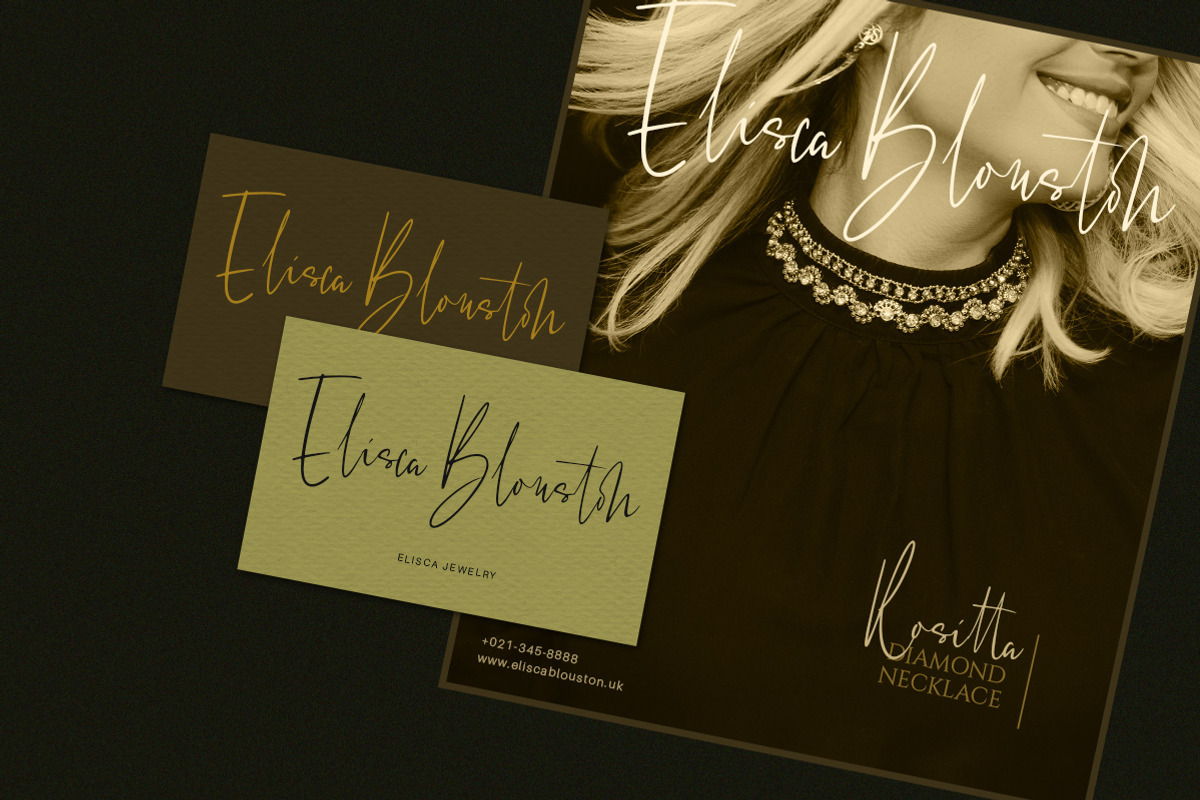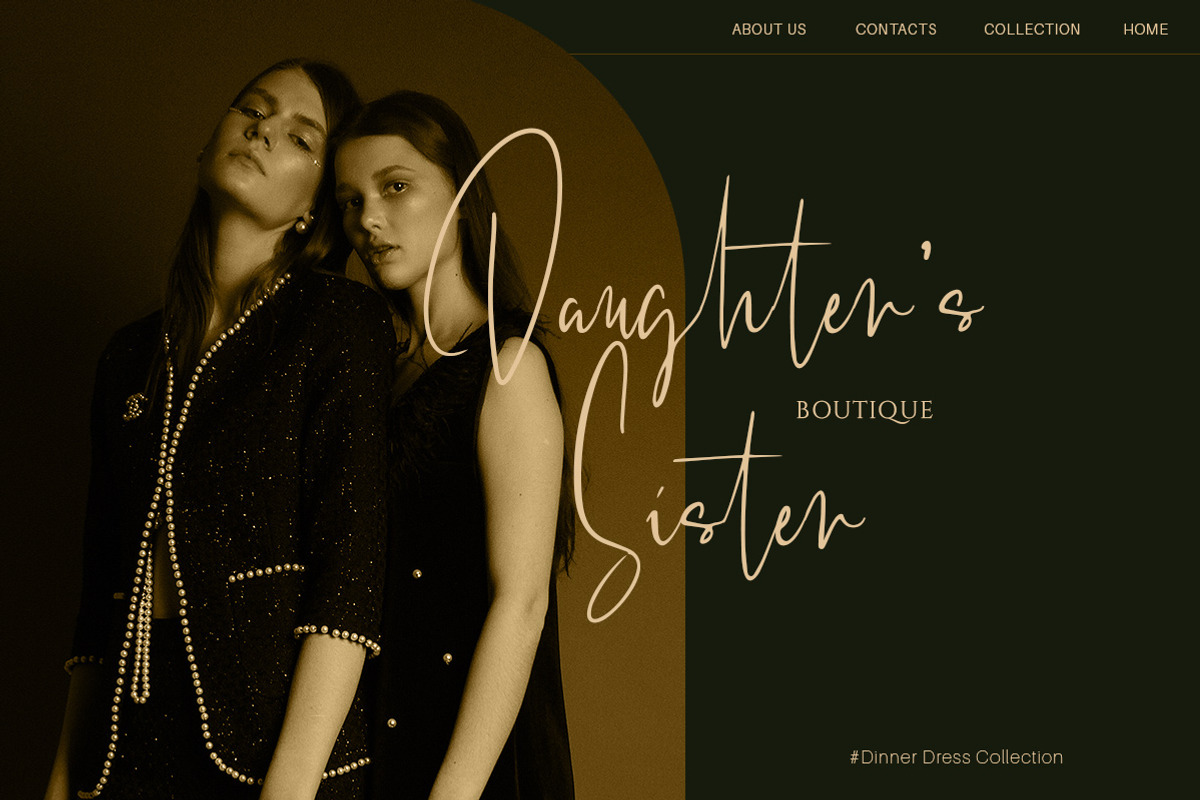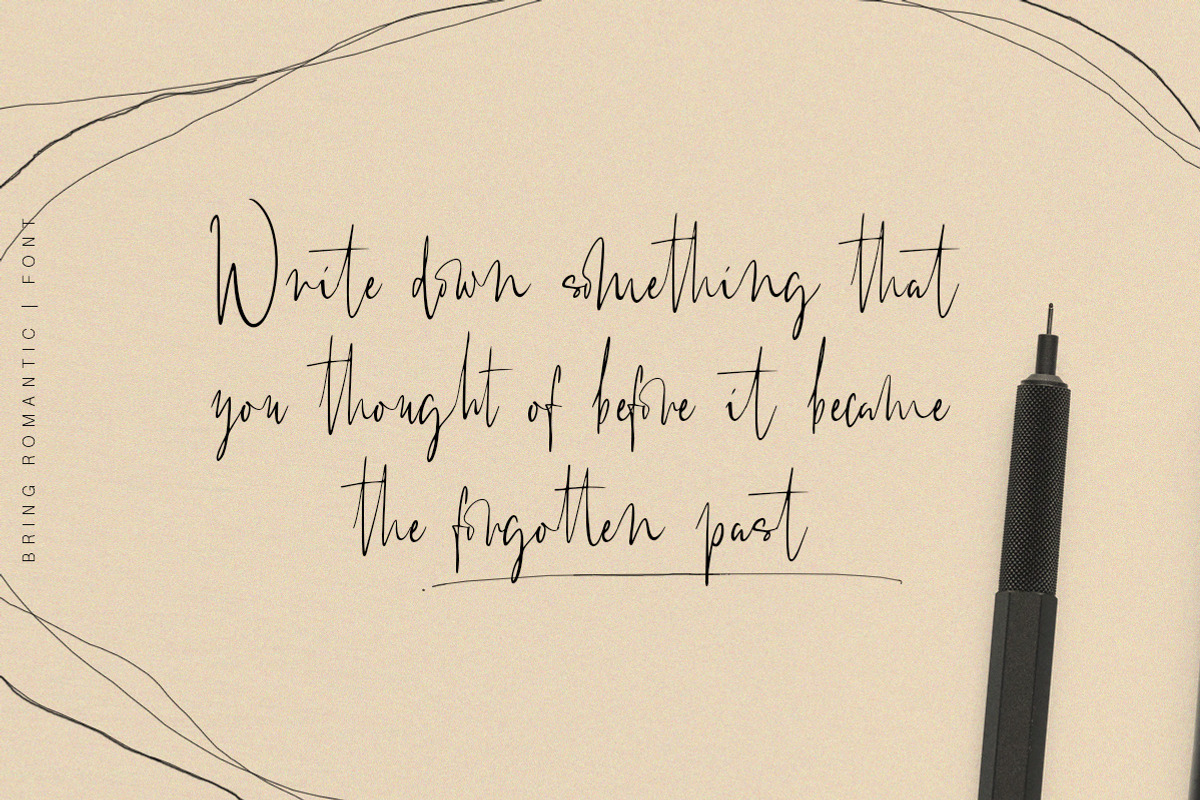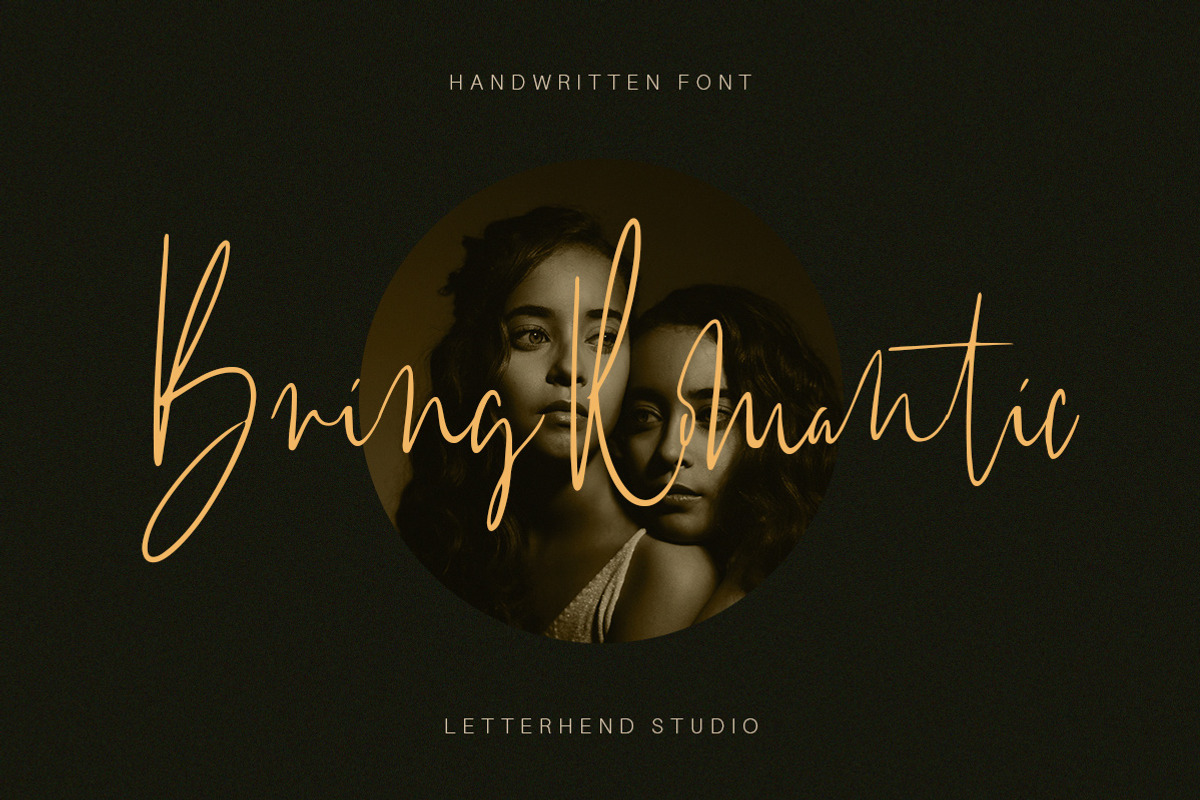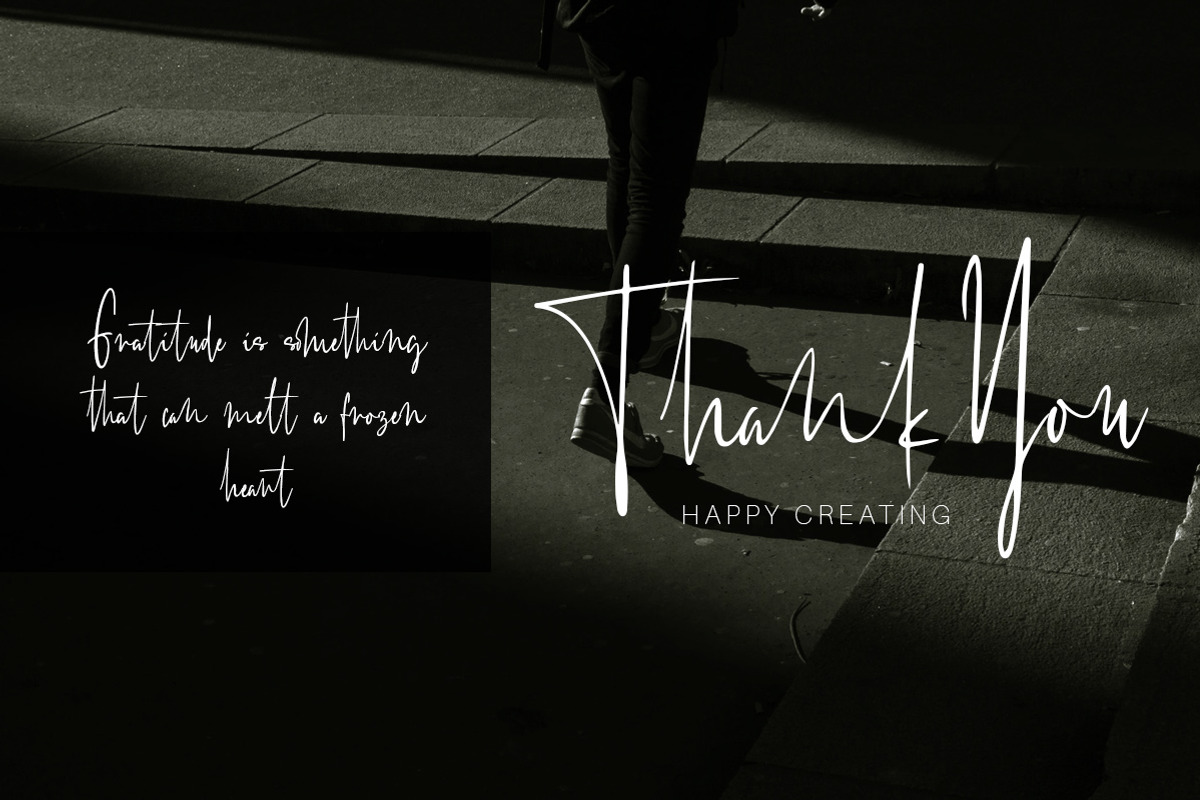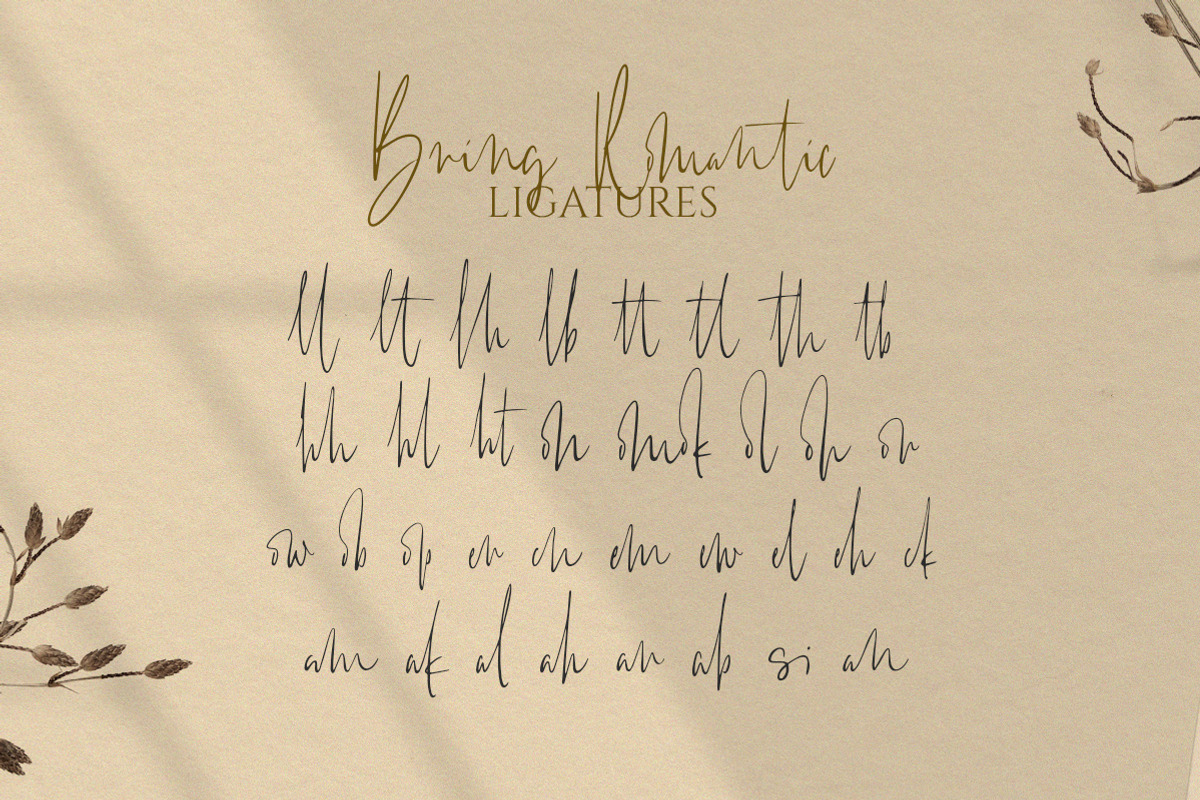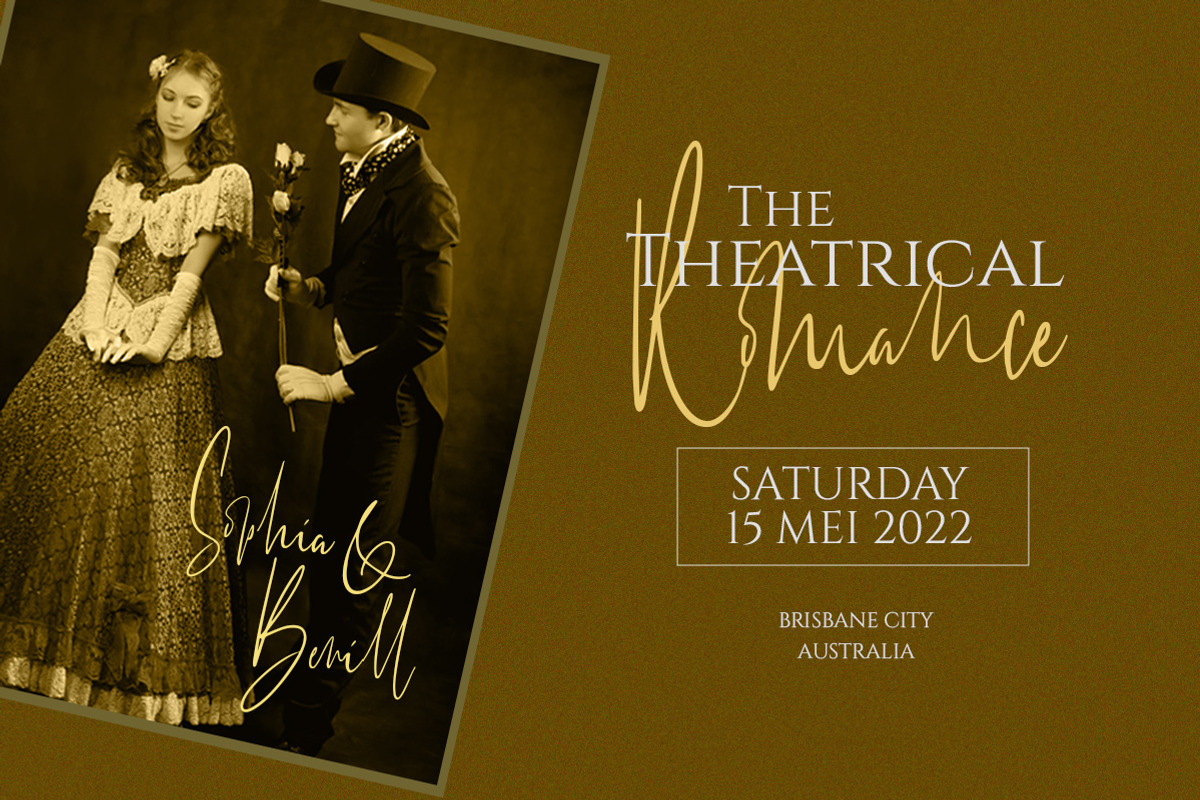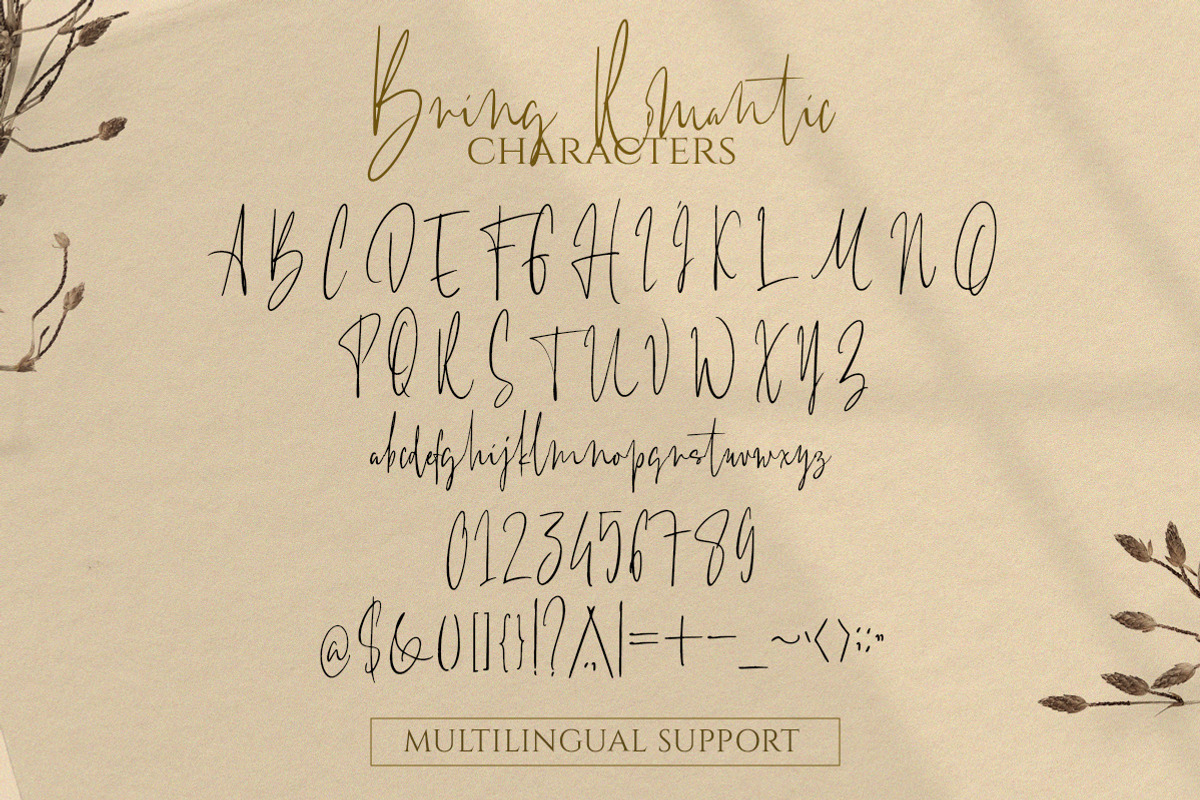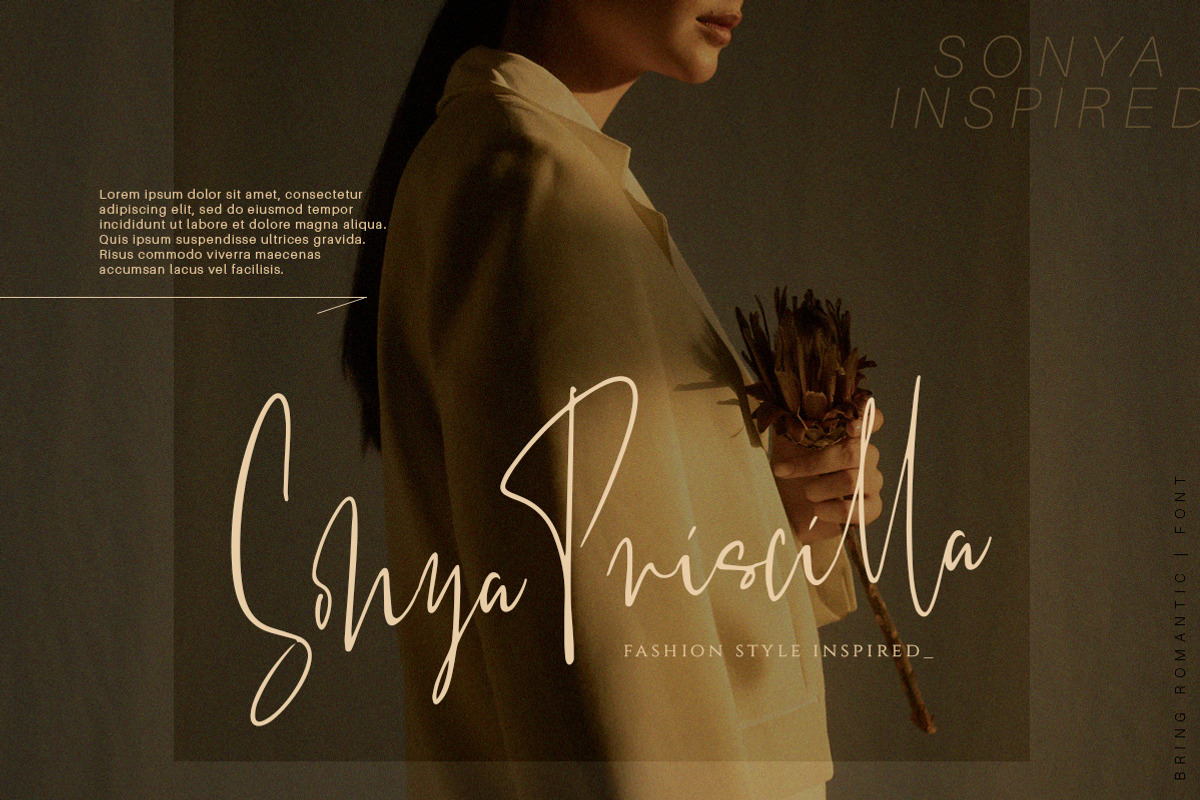
Bring Romantic - Handwritten Font
Introducing, Bring Romantic - a lovely wedding typeface. This font has many stylistic alternates, ligatures, swashes so you can play around with them using opentype features and creates lettering with natural touch. This type of font perfectly made to be applied especially in logo, and the other various formal forms such as invitations, labels, logos, magazines, books, greeting / wedding cards, packaging, fashion, make up, stationery, novels, labels or any type of advertising purpose.
- alternates and ligatures
- swashes